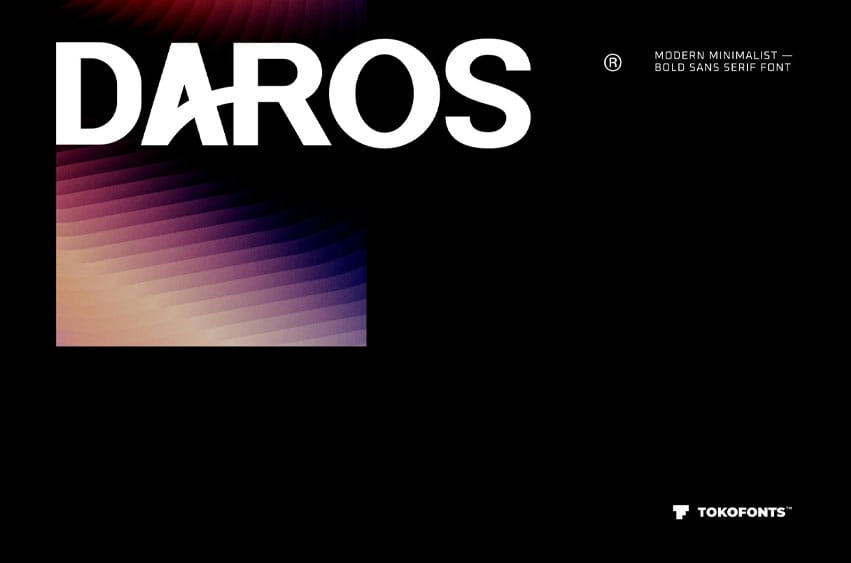
Daros Font is a modern and elegant sans serif display typeface designed to deliver a bold and clean visual impact for logo and branding projects. With its strong geometric structure and minimal form, this font reflects the timeless influence of helvetica, montserrat, and futura while presenting a fresh and contemporary character. It is perfectly suited for corporate identities, fashion branding, and modern design systems that require clarity, strength, and precision.
With its versatile and professional style, Daros font adapts seamlessly across a wide range of applications, from structured corporate layouts to more playful kids concepts. The clean and minimal design ensures excellent readability while maintaining a powerful display presence, making it ideal for logos, branding, and modern visual compositions. Daros stands among modern fonts that combine elegance, simplicity, and bold functionality for impactful design.